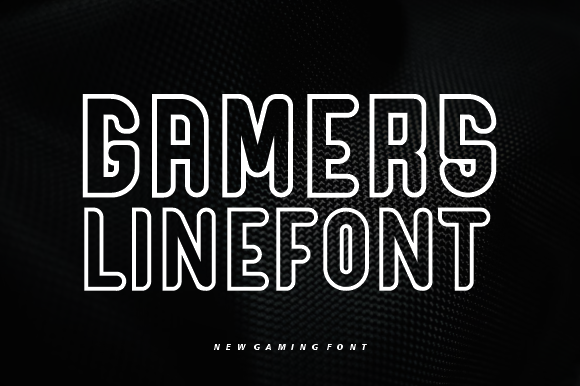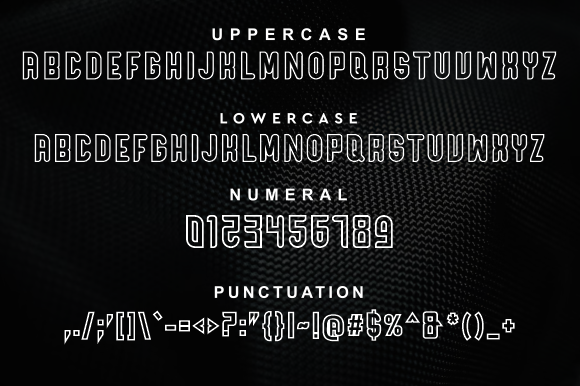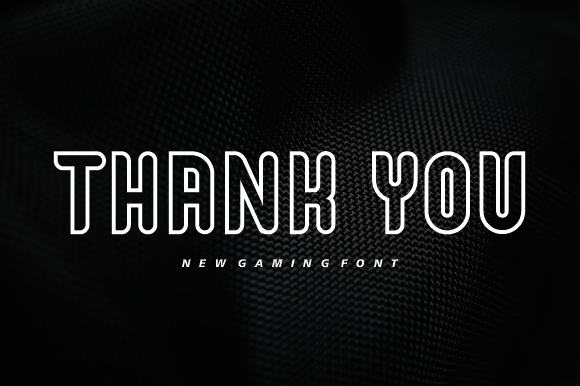
The Perfect Game Font for Your Next Project
Remember that moment when a single design element completely transformed your project? Maybe it was a bold color palette or a clever typography choice. For designers, these eureka moments can be a game-changer. And, in the world of game development and interactive design, a well-chosen font can elevate your project from ordinary to extraordinary.
Enter the Gamexym Line Font, a modern and geometric game font that’s designed to take your projects to the next level. With its unique characters and clean design, this font is the perfect addition to any game or interactive project. Whether you’re a seasoned designer or just starting out, the Gamexym Line Font is a valuable asset to have in your toolkit.
Gamexym Line Font Key Features
- Unique Characteristics: Features a distinctive line-based design, making it perfect for creating visually striking headlines and titles.
- Legibility: Engineered for exceptional legibility, even at small font sizes, making it suitable for body text and long-form content.
- Multi-Lingual Support: Supports a wide range of languages, including Latin, Cyrillic, and Greek scripts, making it a versatile choice for global designs.
Designer Review: Gamexym Line Font
I recently had the chance to work with the Gamexym Line Font, and here’s my honest take on it. ✨ One of the things that stood out to me was its unique, futuristic aesthetic. The font’s bold lines and geometric shapes make it perfect for any project that needs a modern touch.
Another strength of the Gamexym Line Font is its versatility. It can be used for a wide range of applications, from logos and branding to digital interfaces and print materials. It’s also highly customizable, allowing designers to adjust the weight, size, and color to suit their needs.
While the Gamexym Line Font is a great addition to any designer’s toolkit, there are a few limitations to be aware of. ⚠️ One potential issue is that the font may be too bold or overwhelming for some projects, particularly those that require a more subtle or elegant look. Additionally, the font may not be suitable for body text, as it can be difficult to read in smaller sizes.
Overall, I think the Gamexym Line Font is a great choice for designers who need a modern, bold font for their projects. With its unique aesthetic and high level of customization, it’s perfect for anyone looking to add a touch of futurism to their design.
- Unique, futuristic aesthetic
- Perfect for logos, branding, digital interfaces, and print materials
- May be too bold or overwhelming for some projects
- May not be suitable for body text
Practical Application Guide for Gamexym Line Font
Tips for Getting the Most Out of Gamexym Line Font
Use Gamexym Line Font to add a futuristic or high-tech feel to your designs. This font is particularly well-suited for use in logos, titles, and headings. To get the most out of this font, experiment with different font sizes and styles to create a bold and eye-catching effect.
Gamexym Line Font is commonly used in the following contexts:
- Video game design
- Technology and software branding
- Science fiction and futuristic designs Alternatives to Gamexym Line Font
Project Ideas Using Gamexym Line Font
Project 1: Retro Arcade Menu
Create a nostalgic retro arcade menu board with a touch of pixel art. Gamexym Line Font adds a unique, futuristic twist to the classic pixel art aesthetic.
To use Gamexym Line Font in this project:
Project 2: Futuristic Sci-Fi Poster
Design a futuristic sci-fi poster that showcases Gamexym Line Font’s ability to create a sense of otherworldliness.
To use Gamexym Line Font in this project: